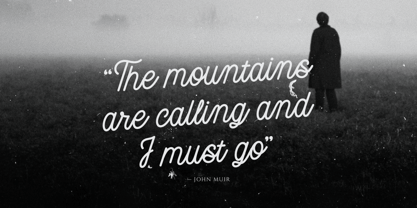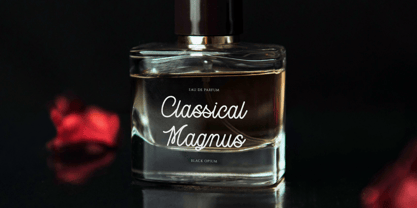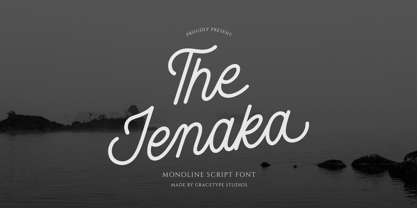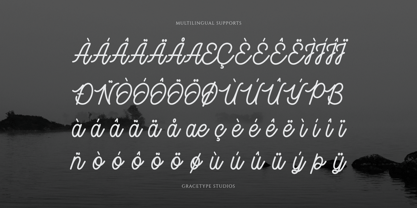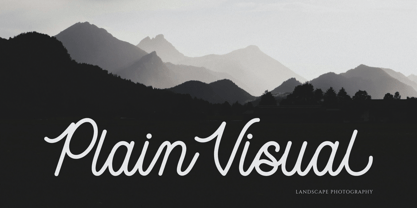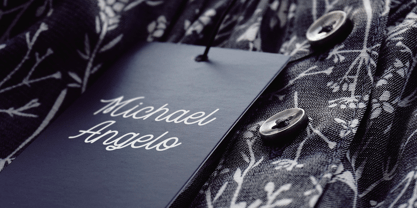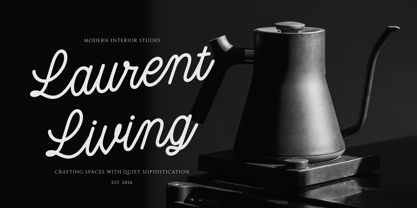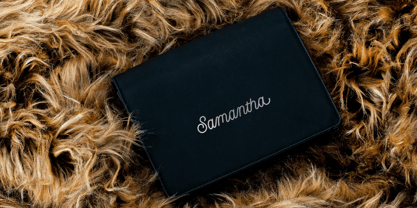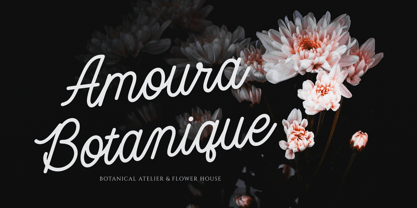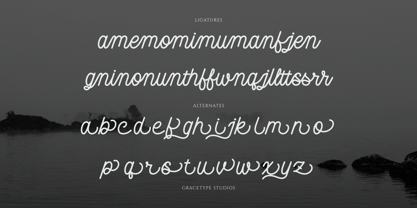
Jenaka
von Tini Fitriani
Die Schriftfamilie Jenaka entworfen und von Tini Fitriani veröffentlicht. Jenaka enthält 2 Stile und Familienpaketoptionen. Mehr über diese Familie
Jenaka | Monoline Script, from Gracetypestudio, suitable for any projects such as: logos, branding projects, homeware designs, product packaging, mugs, quotes, posters, shopping bags, t-shirts, book covers, name card, invitation cards, greeting cards, label, photography, watermark, special events, and all your other lovely projects that need a Script taste.